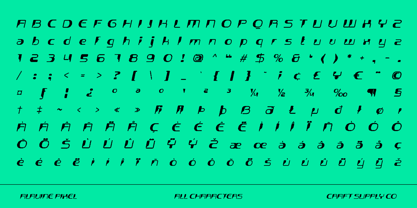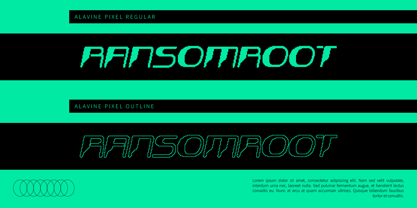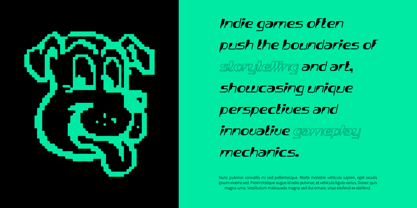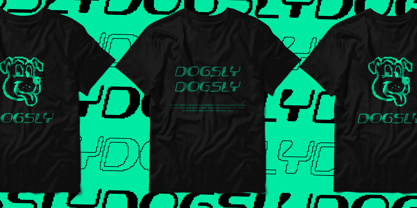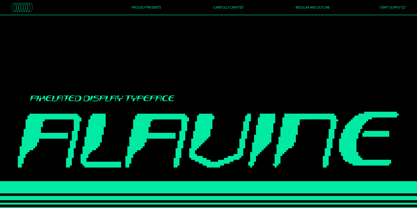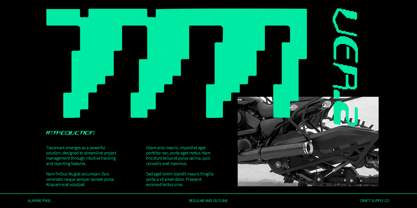
Alavine Pixel
by Craft Supply Co
The Alavine Pixel Font Family was designed by Trio Nazzar Saputra, Wahyu Hadi Yuana and published by Craft Supply Co. Alavine Pixel contains 2 styles and family package options. More about this family
Alavine Pixel Font: Futuristic Aesthetics Meet Retro Digital Charm
Modern Display Font Inspired by Y2K Robot Aesthetics
Alavine Pixel is a modern display font that draws inspiration from the sleek, angular shapes characteristic of futuristic robot aesthetics from the Y2K era. With its sharp lines and innovative design, this font conveys a sense of advanced technology, making it a perfect choice for projects that embrace themes of innovation and futurism.
Pixel Effect for a Retro Digital Touch
The font is wrapped in a pixel effect, adding a nostalgic digital twist that enhances its futuristic impression. This unique texture evokes memories of classic video games and sci-fi films, creating a captivating blend of modernity and retro flair. Alavine Pixel not only stands out visually but also brings a playful, tech-savvy edge to any design.
Perfect for Tech-Themed Design Projects
Ideal for a variety of design applications, Alavine Pixel is particularly well-suited for projects emphasizing technology, innovation, and uniqueness. Whether you’re designing event posters, branding technology products, or creating digital media, this font ensures a striking and modern appearance that resonates with audiences looking for something fresh and exciting.
Designers: Trio Nazzar Saputra, Wahyu Hadi Yuana
Foundry: Craft Supply Co